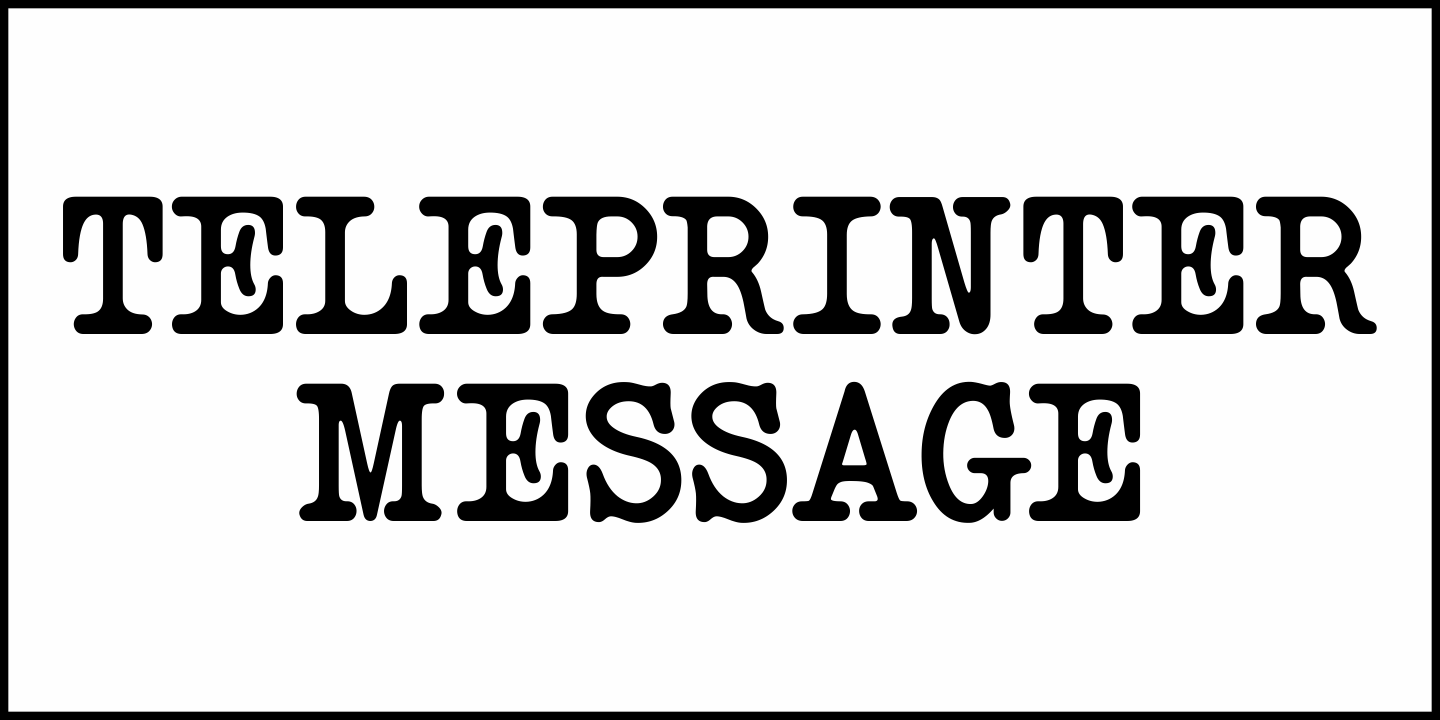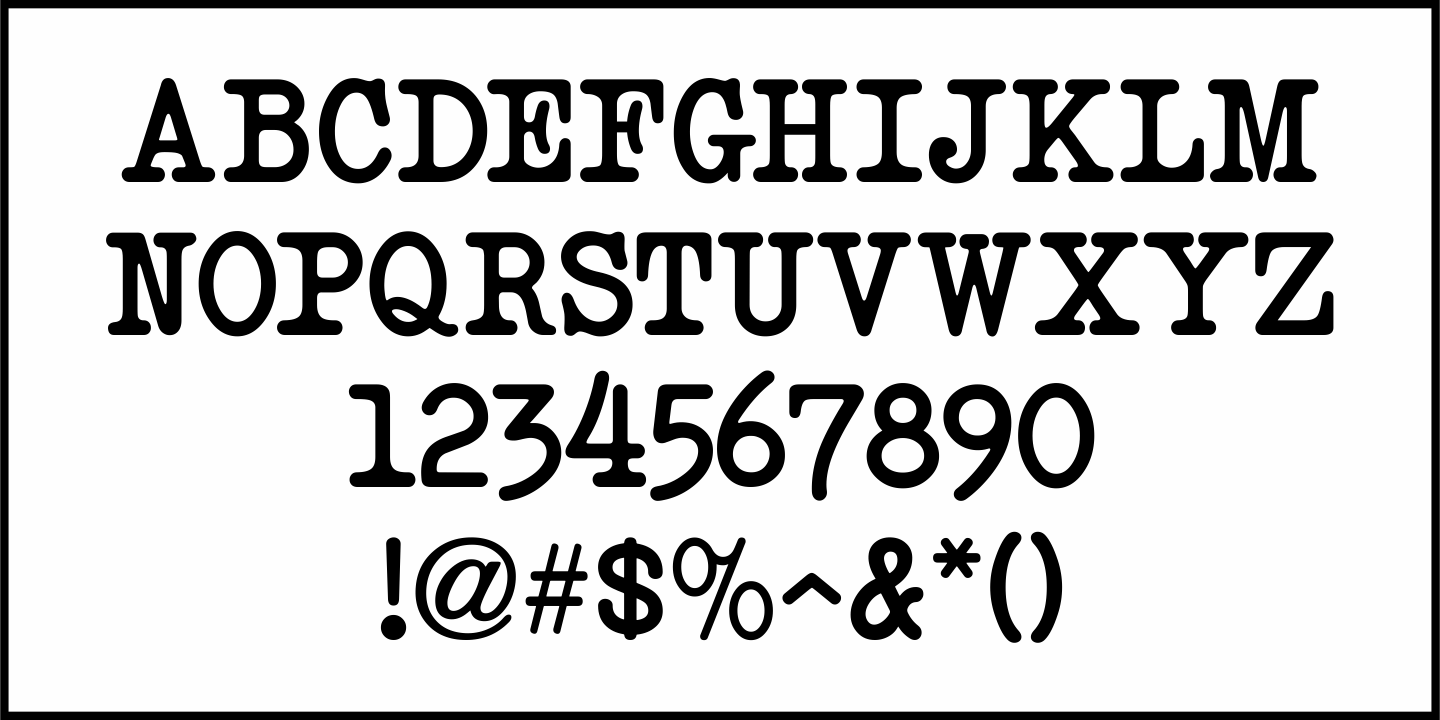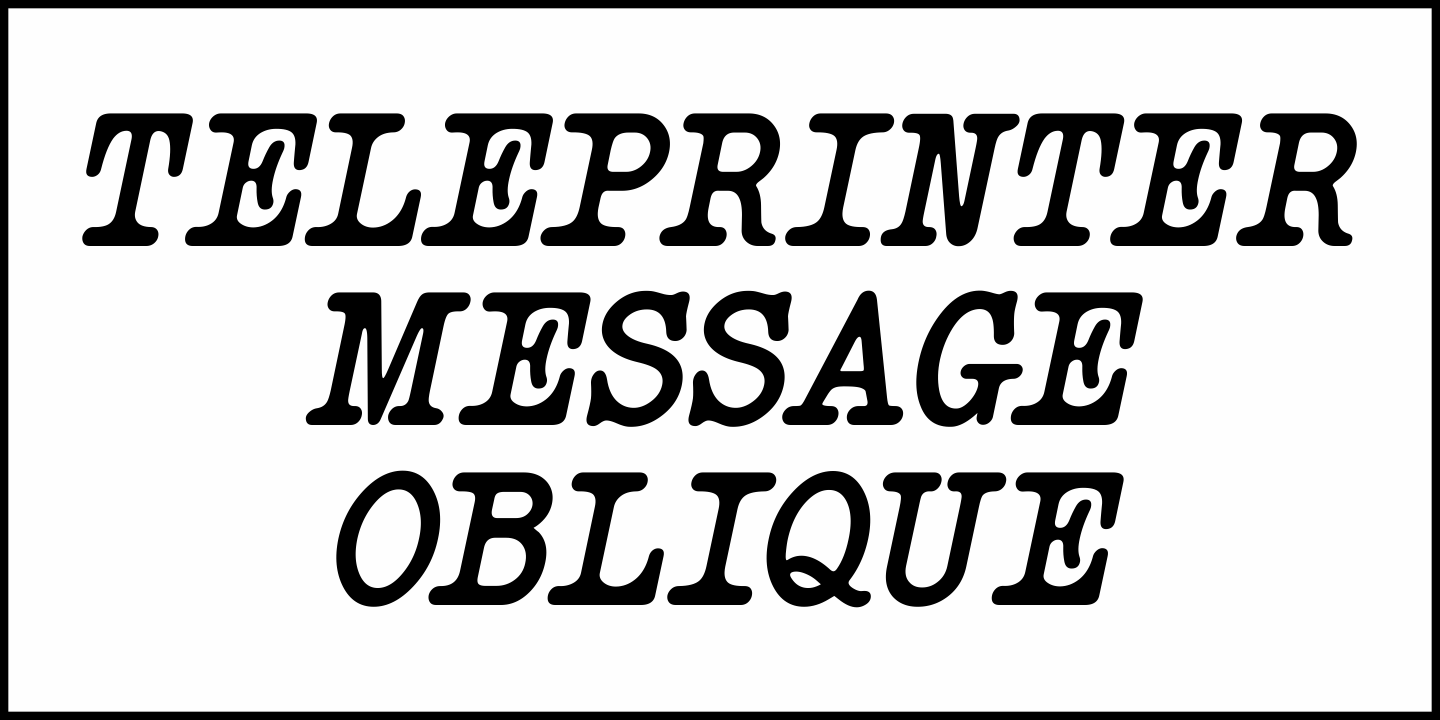
Teleprinter Message
The Oct. 1, 1935 issue of The Film Daily carried an ad for the film "Keeper of the Bees" featuring a reproduction of a laudatory telegram. The text of that telegram served as the basis for Teleprinter Message JNL, which is available in both regular and oblique versions.
A teleprinter is a keyboard device that can send messages to a similar device and print out the mesage in plain text, such as the teletype machines found in newsrooms of the past.